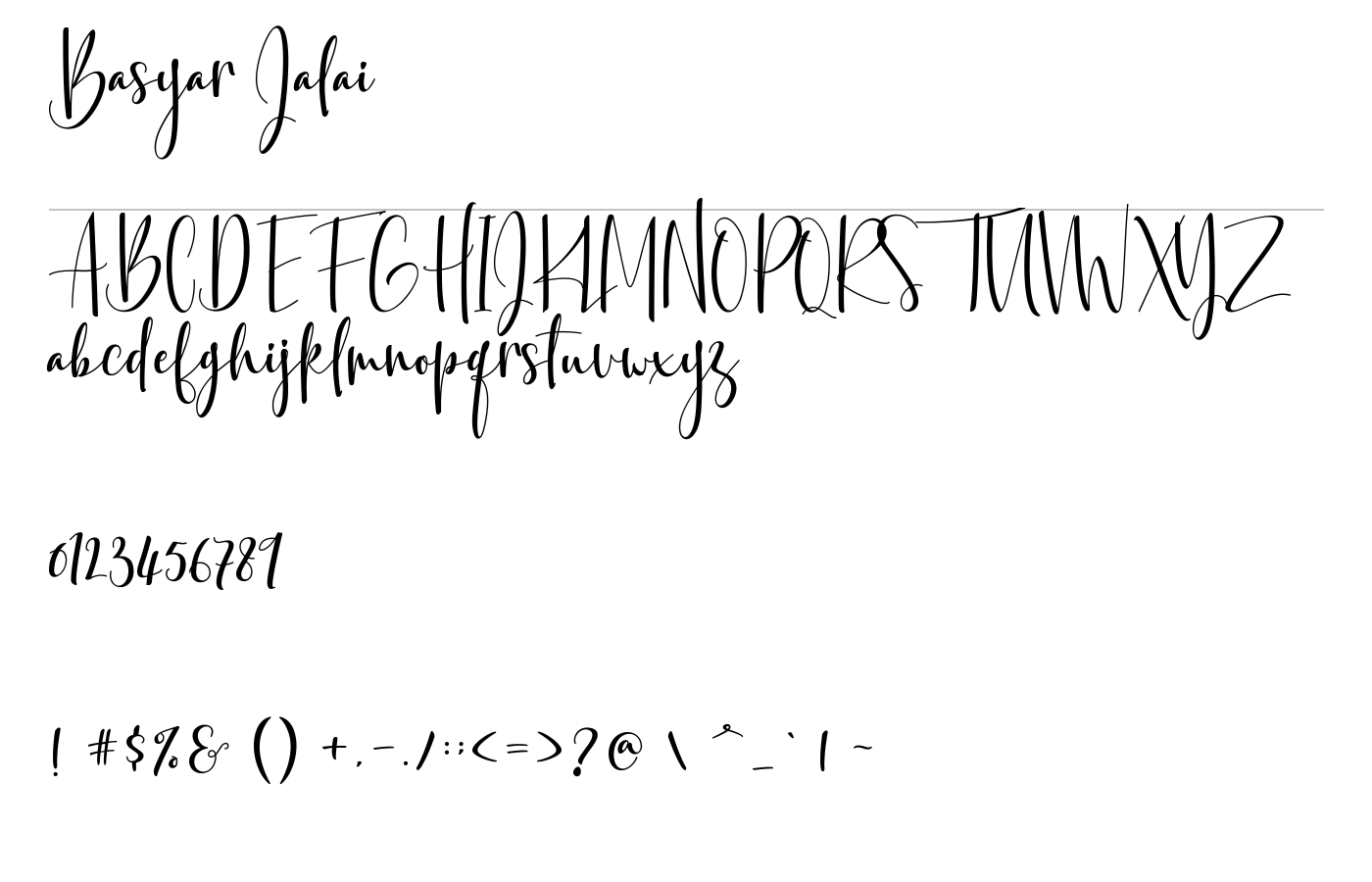
Basyar Jalai is a delicate and stylish handwritten script font with tall, elegant letterforms and a playful, flowing feel. Its slender strokes and varied line thickness give it a personal, artistic touch, making it perfect for invitations, branding, and creative projects that seek a sophisticated yet approachable look. This font works best in headlines and display uses where a charming, modern elegance is desired.
Basyar Jalai Font
About Basyar Jalai Font
| Font family | Basyar Jalai Font |
| Designer | Latifah |